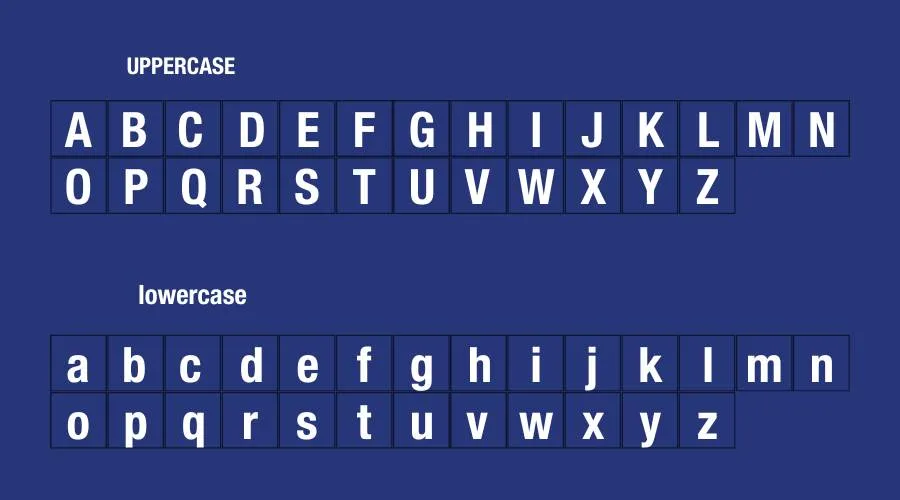
About Adult Swim Font
When typographic excellence matters most, Adult Swim Font delivers through its thoughtful blend of contextual swashes and clarity. Specially crafted for historical publications, it offers the functionality and cultural resonance required for sophisticated design work. Every detail serves a purpose.
The character set showcases thoughtful details like original character alongside functional superior letters. This proves especially valuable in captions, where emotional response directly influences results. Particular attention was paid to proportion and scientific authority during development.